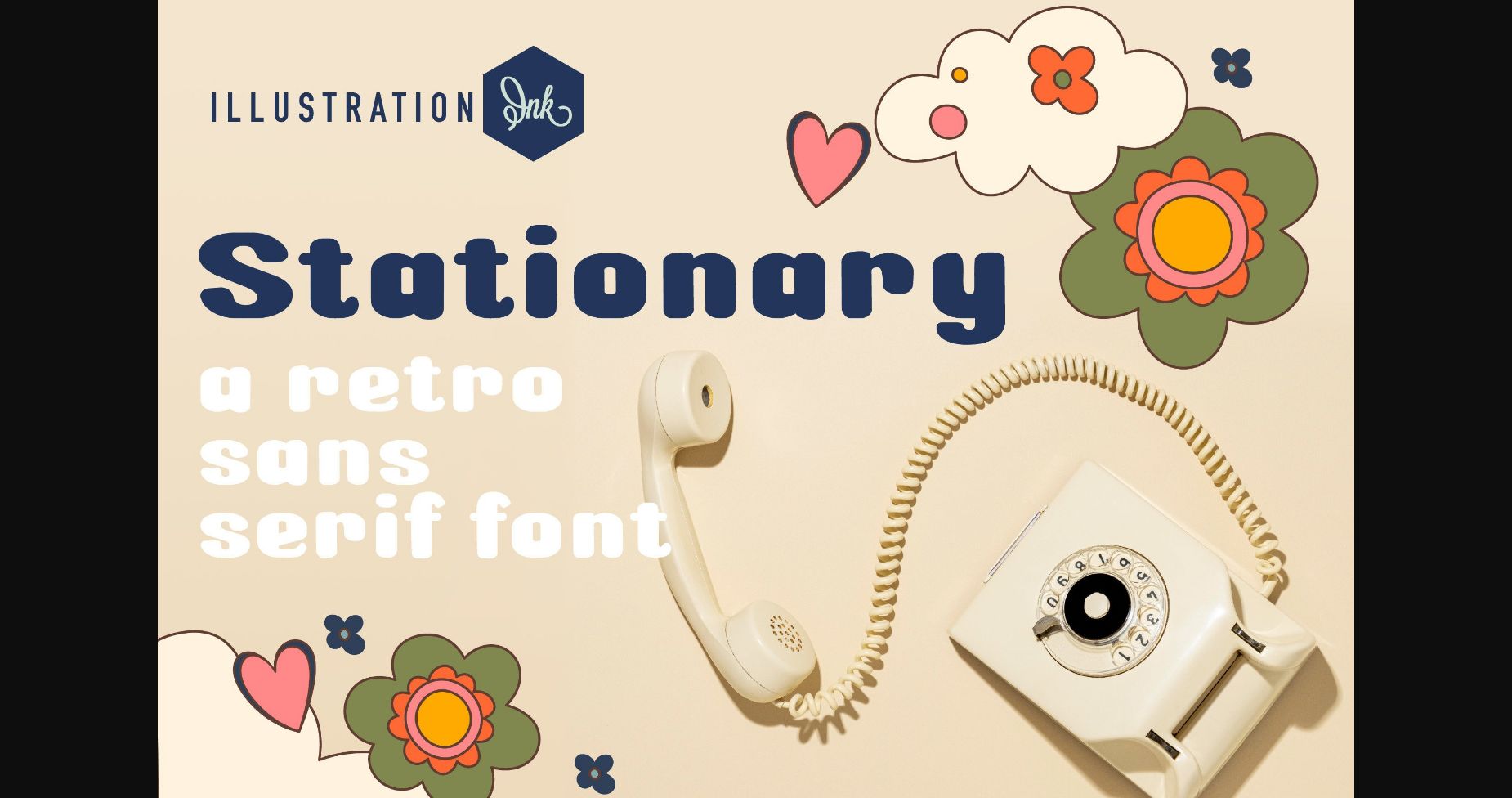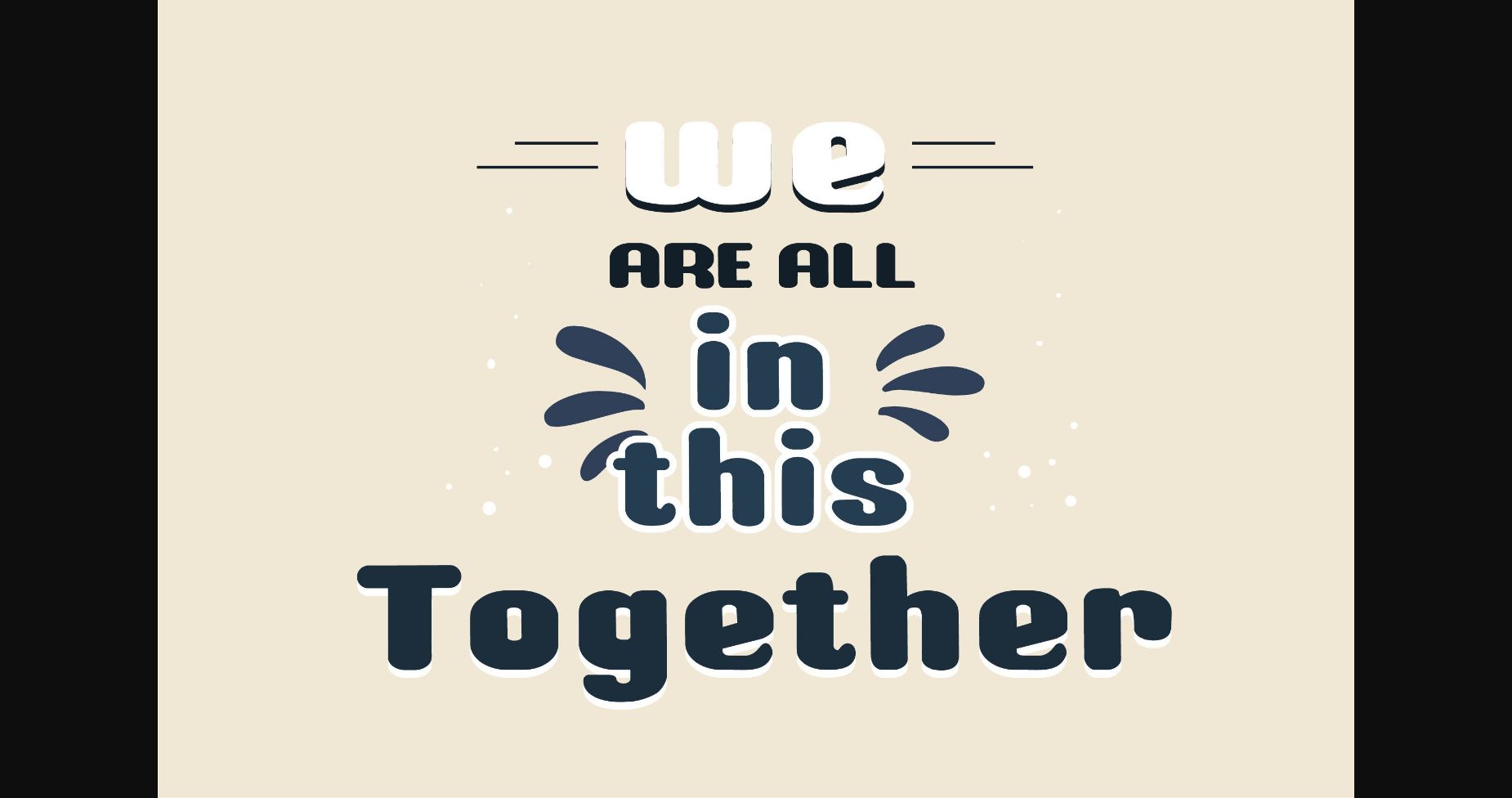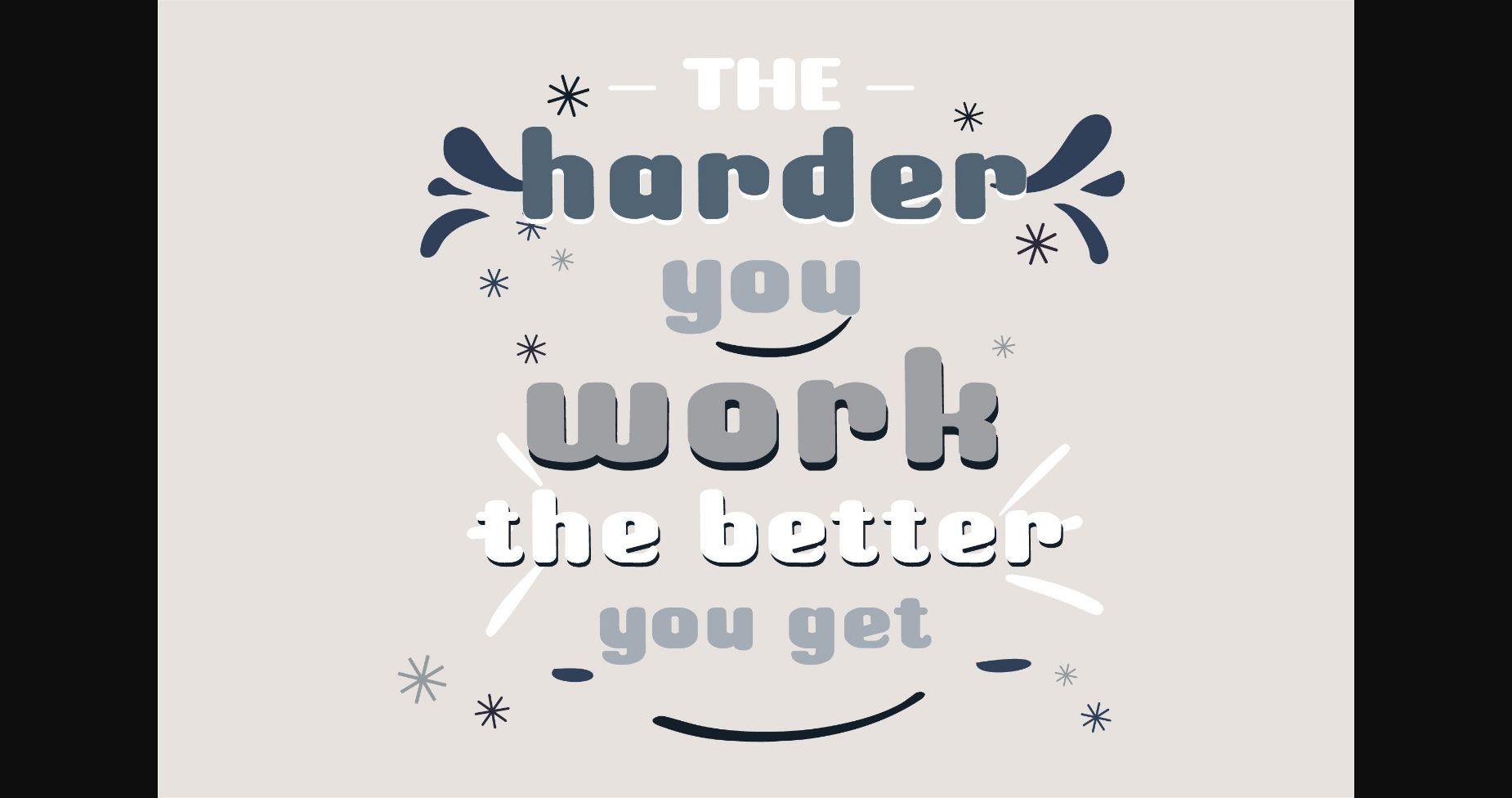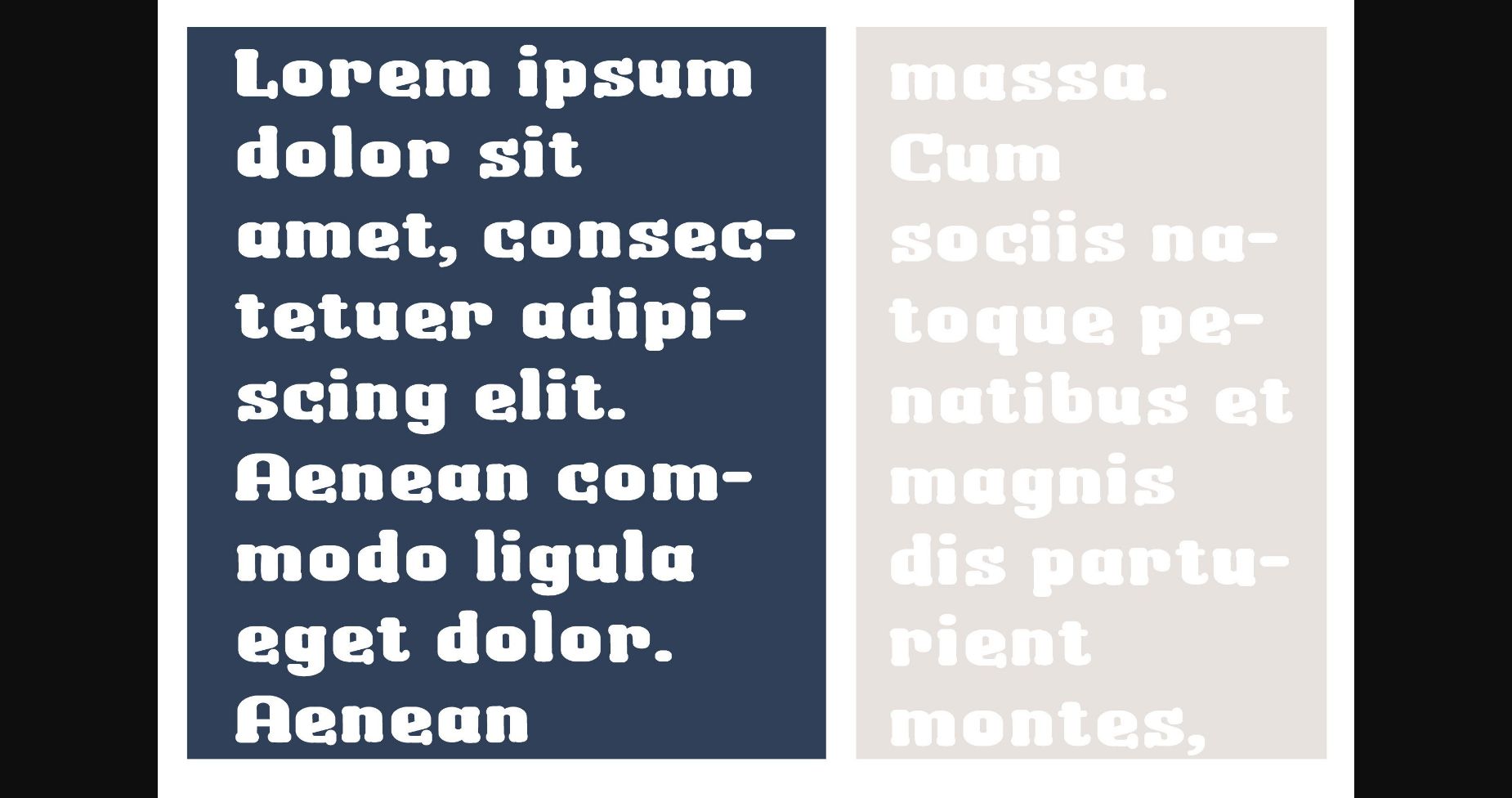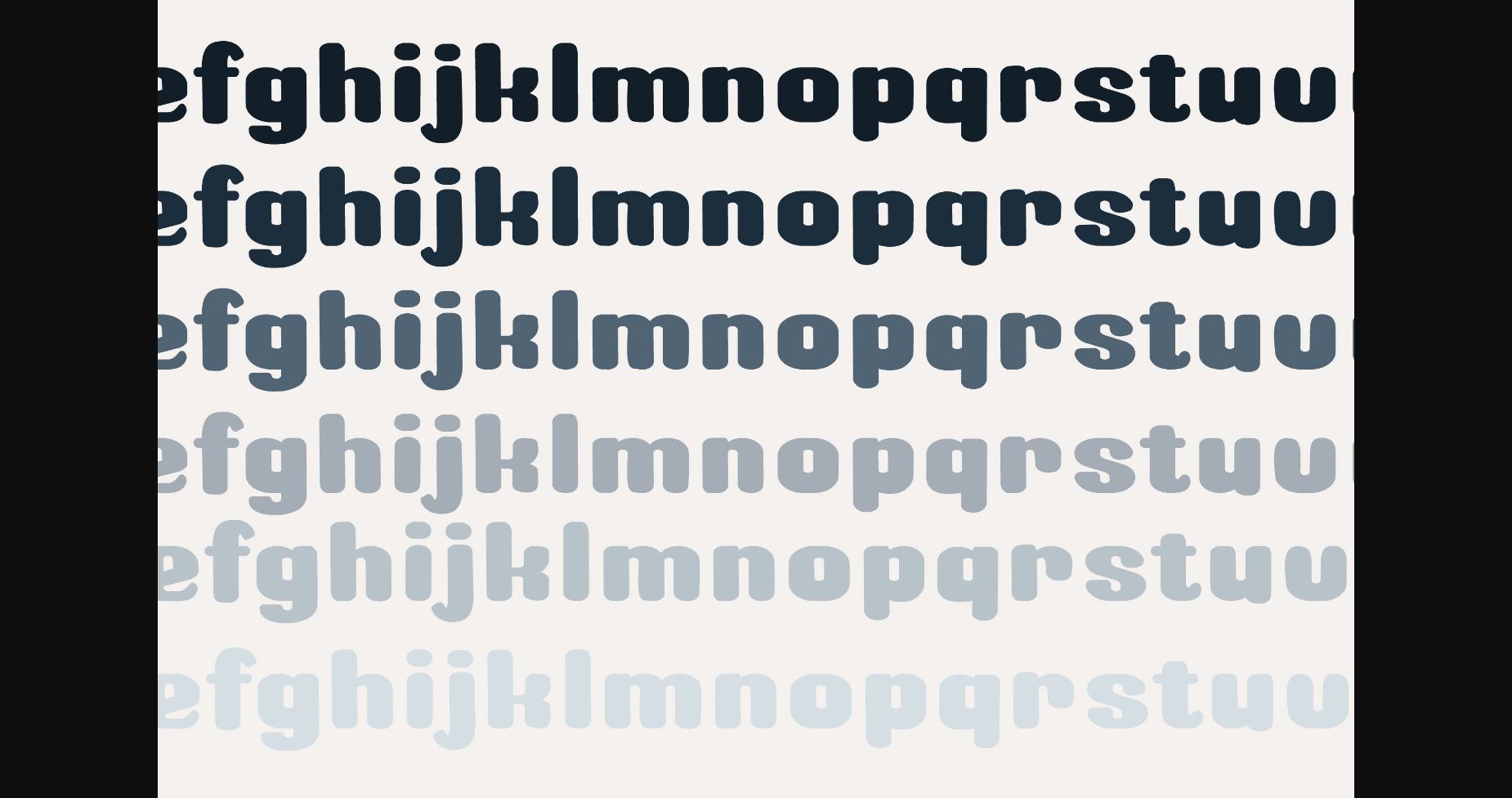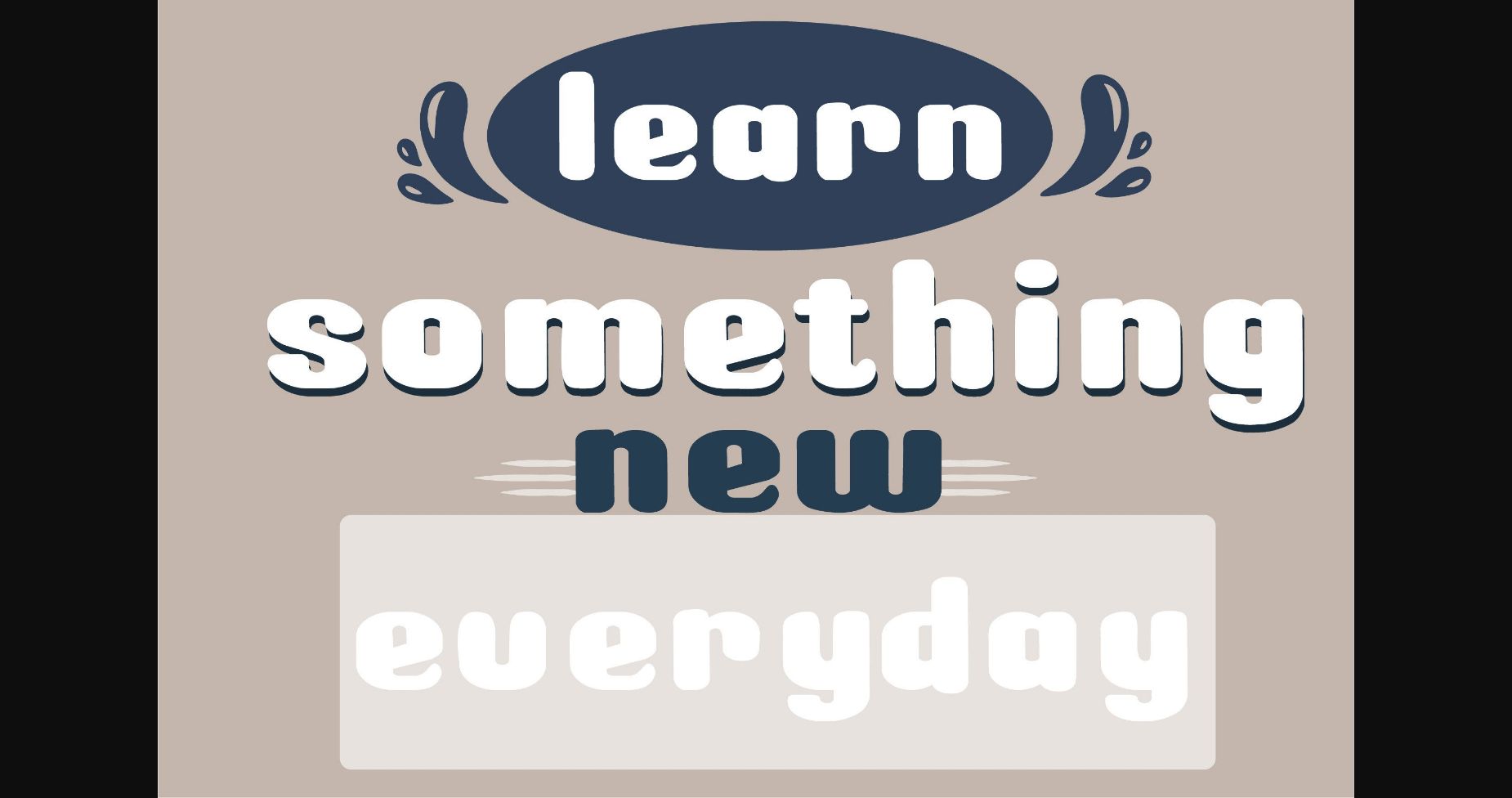
Stationary Font
About Stationary Font
Stationary is a neat, retro sans serif font. Masterfully designed to become a true favorite, this font has the potential to bring each of your creative ideas to the highest level!